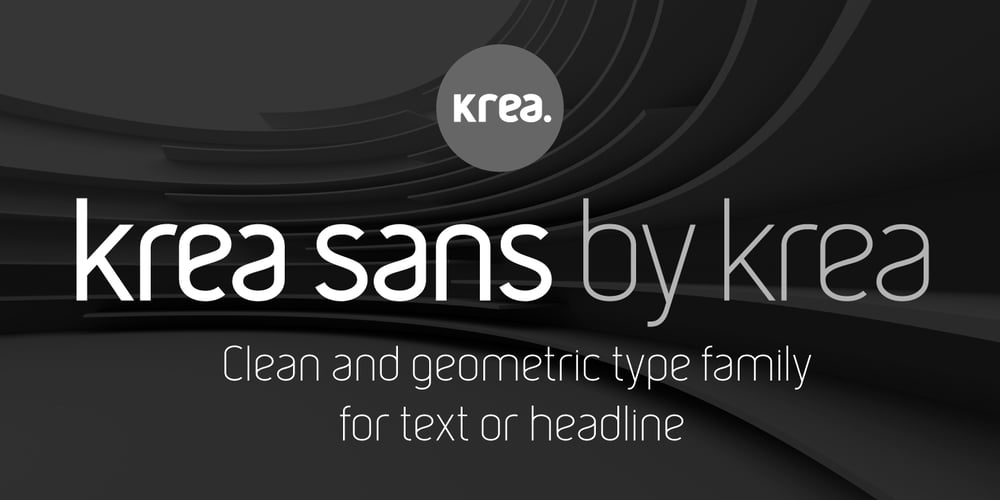
Krea Sans Font Family was designed by Peter Felix and published by Krea SK. Krea Sans contains 2 styles and family package options. The inspiration for designing this font was our company logo, that we created first. The design is influenced by a typeface called Din. The main characteristic and features are clean, minimalistic, geometric. Young playful companies and clients could definitely use this font for their branding.